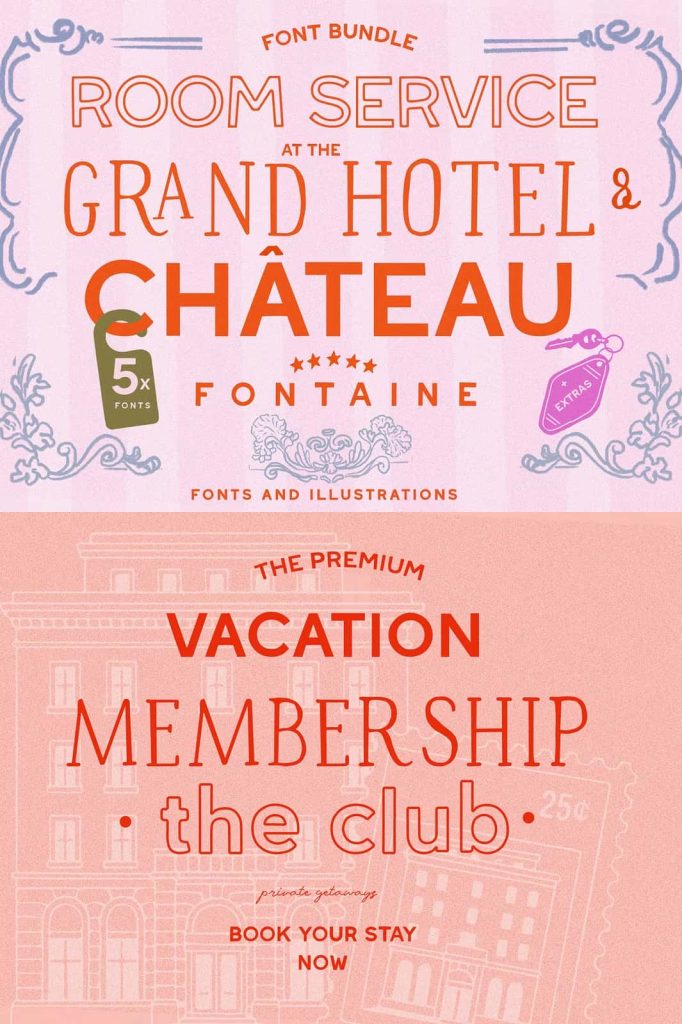
5 Fonts in one: This amazing little collection comes with 5 beautifully handcrafted typefaces and hand-illustrated extras, as a heartfelt homage to 70’s glam and vintage travel.